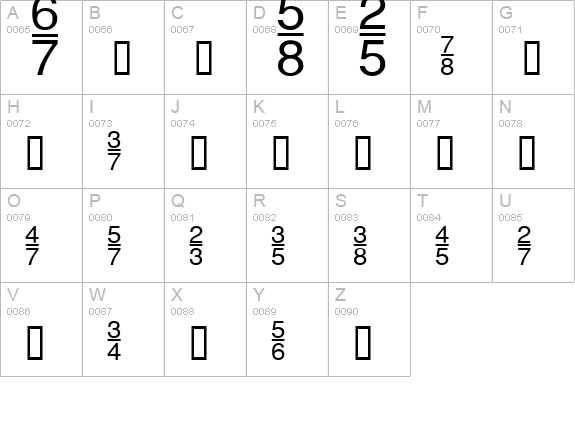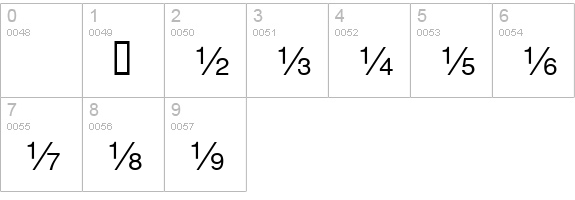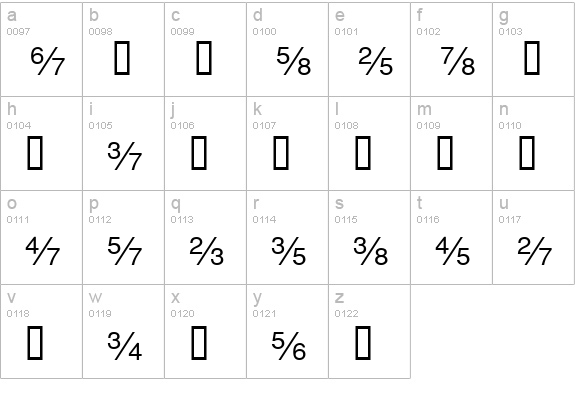
HeFractions Font Details
HeFractions is a modern and elegant font that seamlessly combines sophistication with readability. This versatile typeface is perfect for a wide range of design projects, from editorial layouts to branding materials. With its clean lines and balanced proportions, HeFractions exudes a sense of professionalism and refinement. One of the standout features of HeFractions is its unique set of fraction numerals. These meticulously crafted fractions enhance the typography, allowing for precise and visually appealing fraction representation. Whether you're working on a mathematical document, a recipe book, or a financial report, HeFractions will ensure that your fractions are accurately and beautifully displayed. In addition to its exceptional design, HeFractions is also free to download at FontsMarket.com. This means that you can access this premium quality font without any cost. Being freely available, HeFractions enables designers, students, and enthusiasts to elevate their projects without any financial constraints. The versatility of HeFractions extends beyond its ability to display fractions. This font also includes a wide range of weights and styles, allowing you to experiment and find the perfect fit for your design needs. From the lightest hairline to the boldest black, HeFractions offers a spectrum of options to enhance the visual hierarchy and overall impact of your typography. Furthermore, HeFractions is designed with meticulous attention to detail, ensuring optimal legibility and readability even at small sizes. Each character is carefully crafted to maintain clarity and distinction, making it an excellent choice for both print and digital mediums. With HeFractions, you can effortlessly create elegant and professional designs that demand attention. So why wait? Download HeFractions for free at FontsMarket.com today and discover the endless possibilities this exceptional font has to offer.